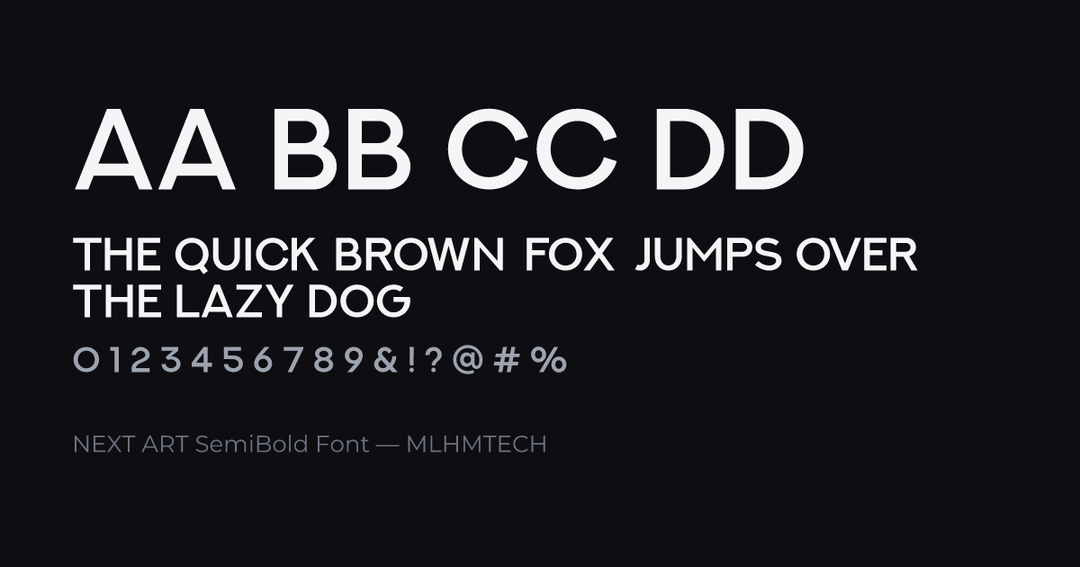
NEXT ART SemiBold Font
NEXT ART SemiBold is a modern sans-serif font with a clean, geometric look. Ideal for logos, headings, and creative branding.
NEXT ART SemiBold is a versatile sans-serif typeface that combines contemporary style with excellent legibility. Its semi-bold weight adds a touch of confidence and clarity, making it perfect for headlines, subheadings, and branding materials.
Whether you're designing a logo, crafting a poster, or building a website, NEXT ART SemiBold will give your work a professional and modern edge.